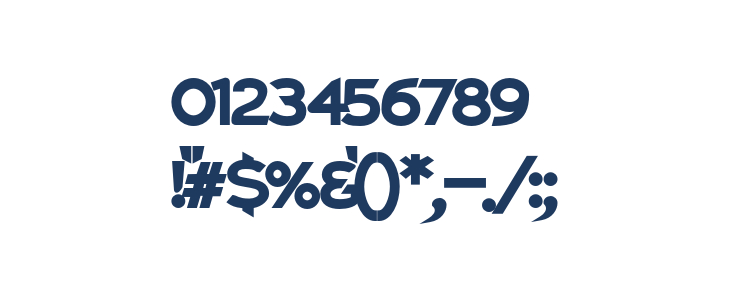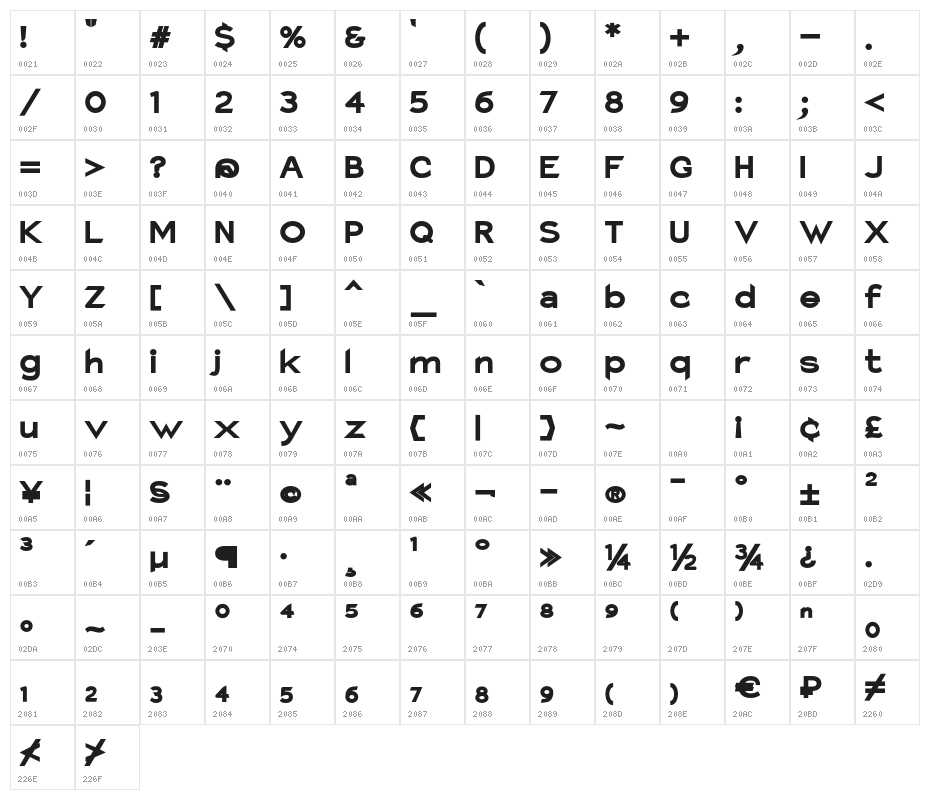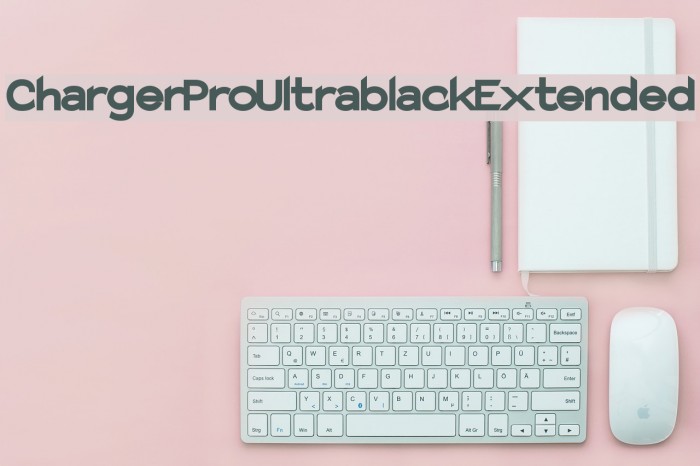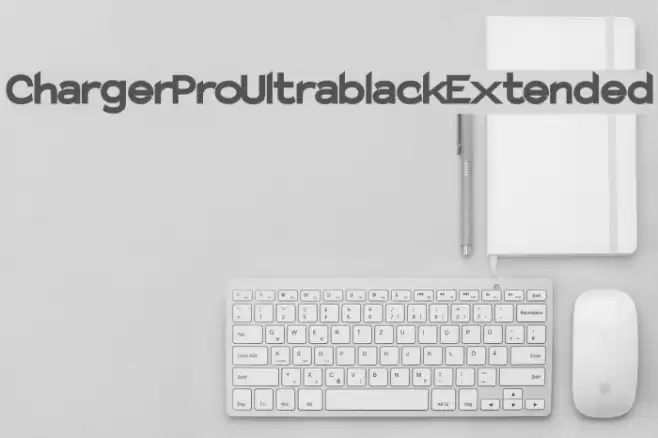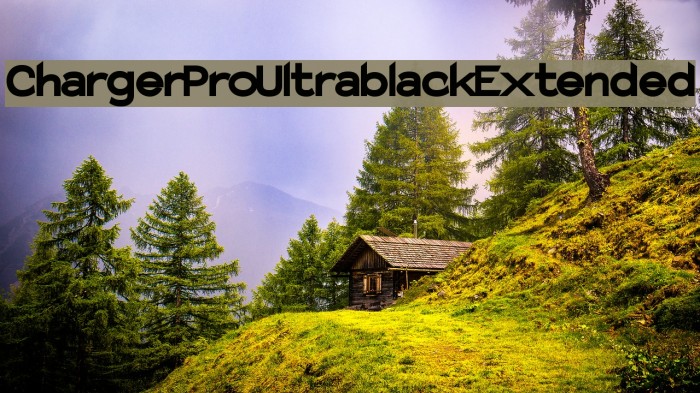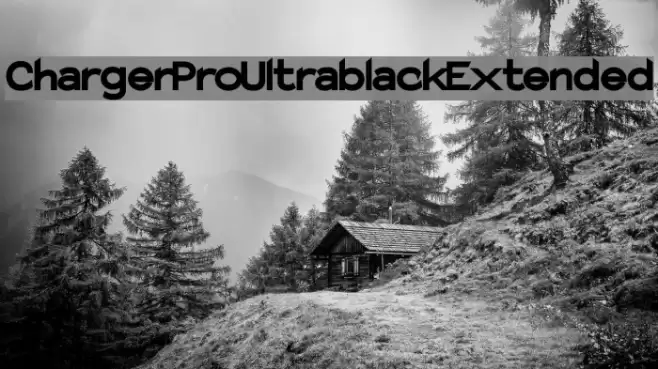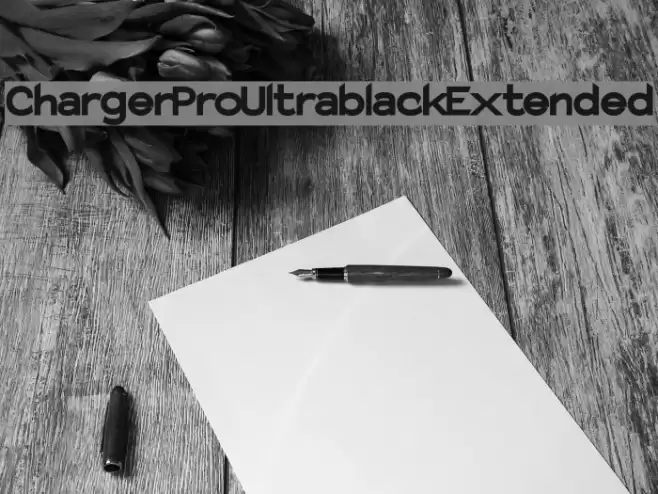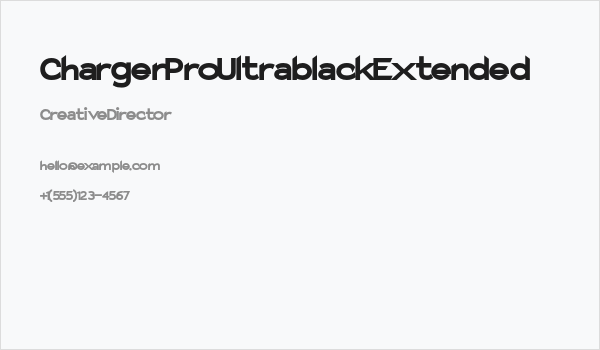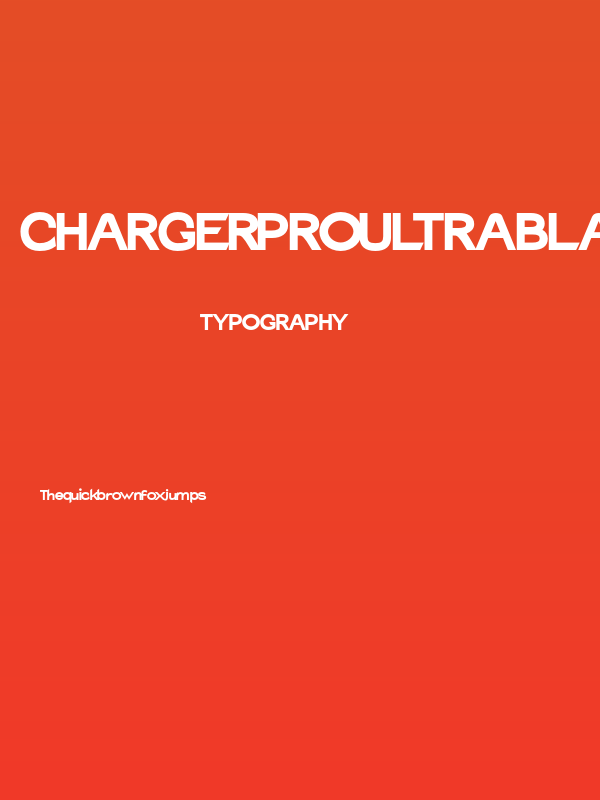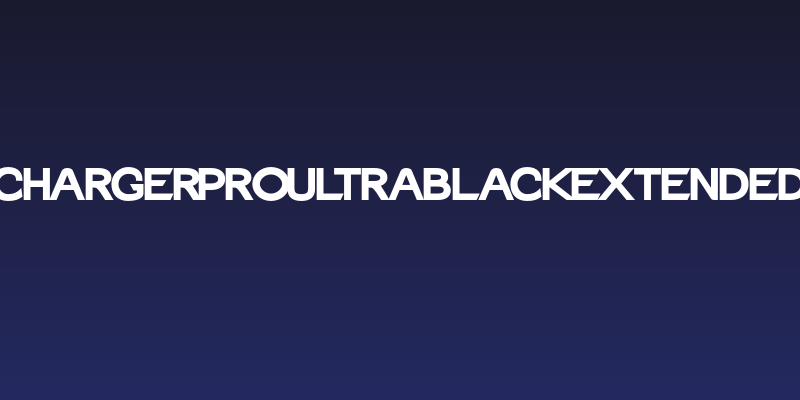
Charger Pro Ultrablack Extended Font
Charger Pro Ultrablack Extended Description
This font exhibits a bold and commanding presence with its ultra-black weight and extended width. The characters are designed with a modern and geometric style, featuring clean lines and a strong visual impact. The uppercase letters are particularly striking, with a uniform height and a consistent stroke thickness that enhances readability. The lowercase letters maintain the same boldness, ensuring a cohesive look across different text cases. Numbers and special characters are crafted with the same attention to detail, making them stand out in any design. This font is ideal for projects that require a strong and assertive typeface.